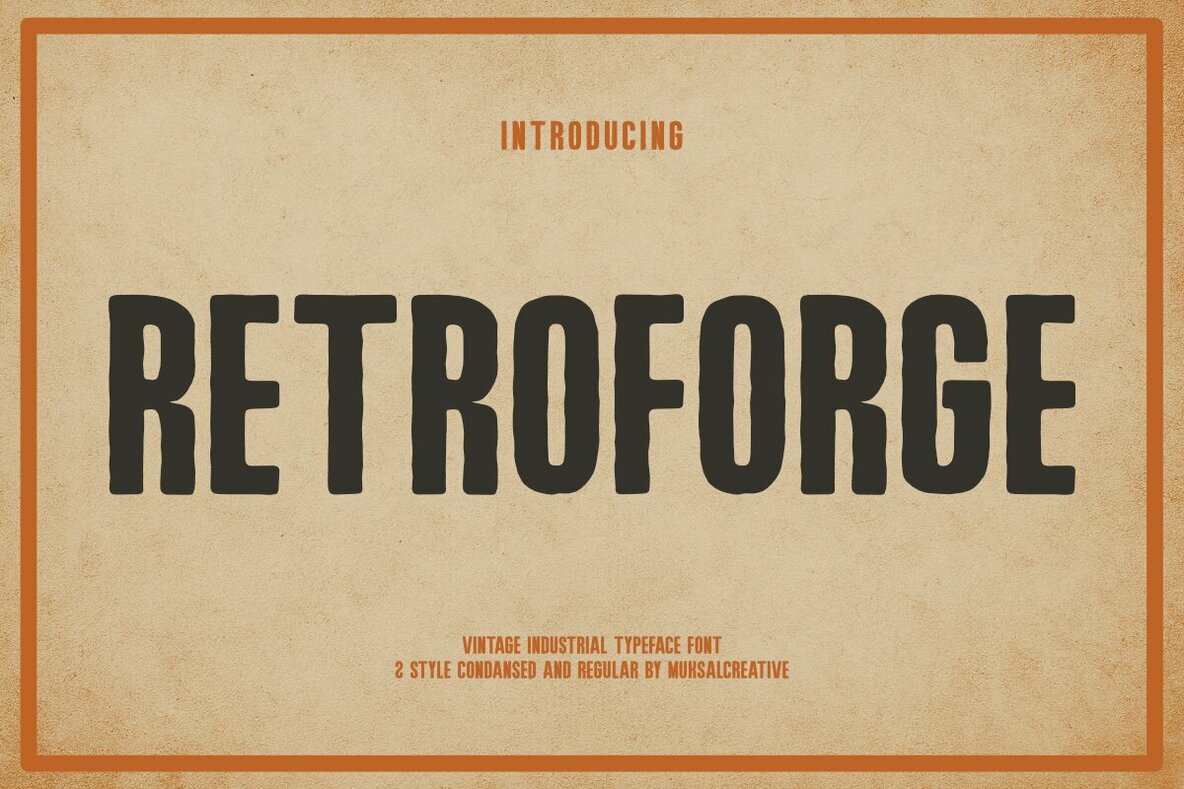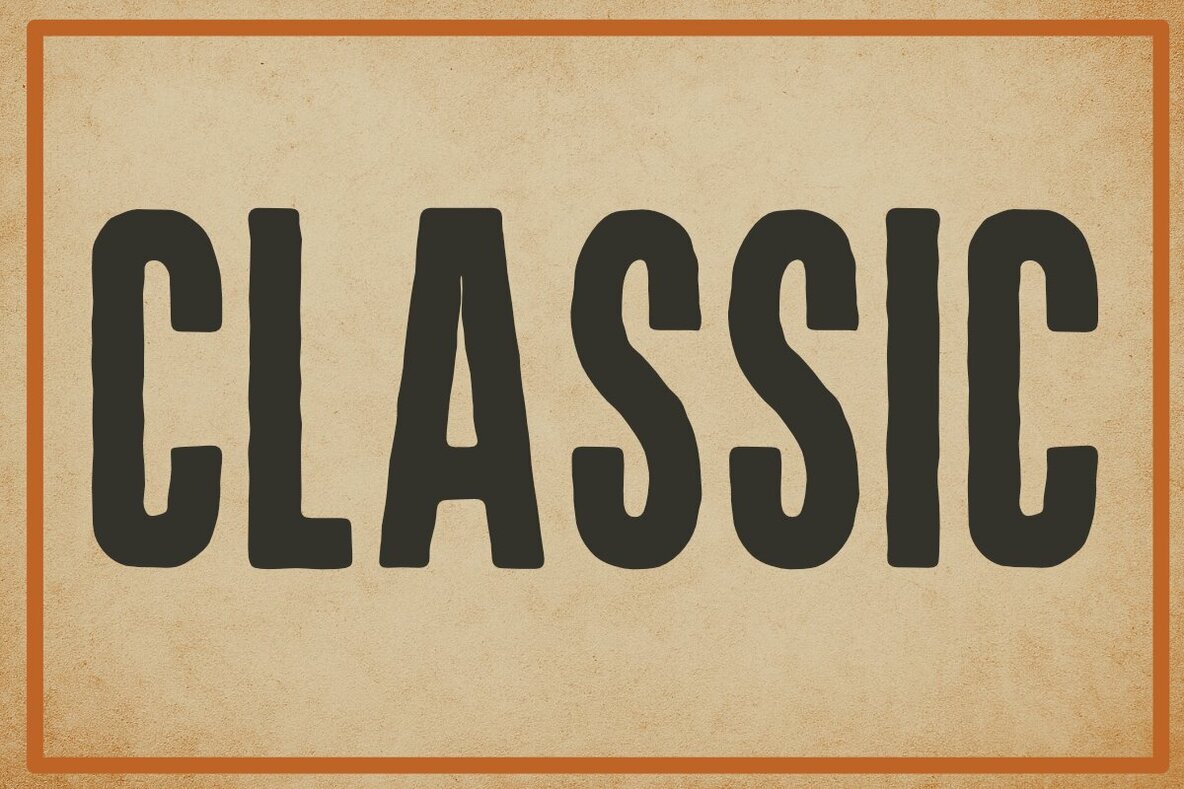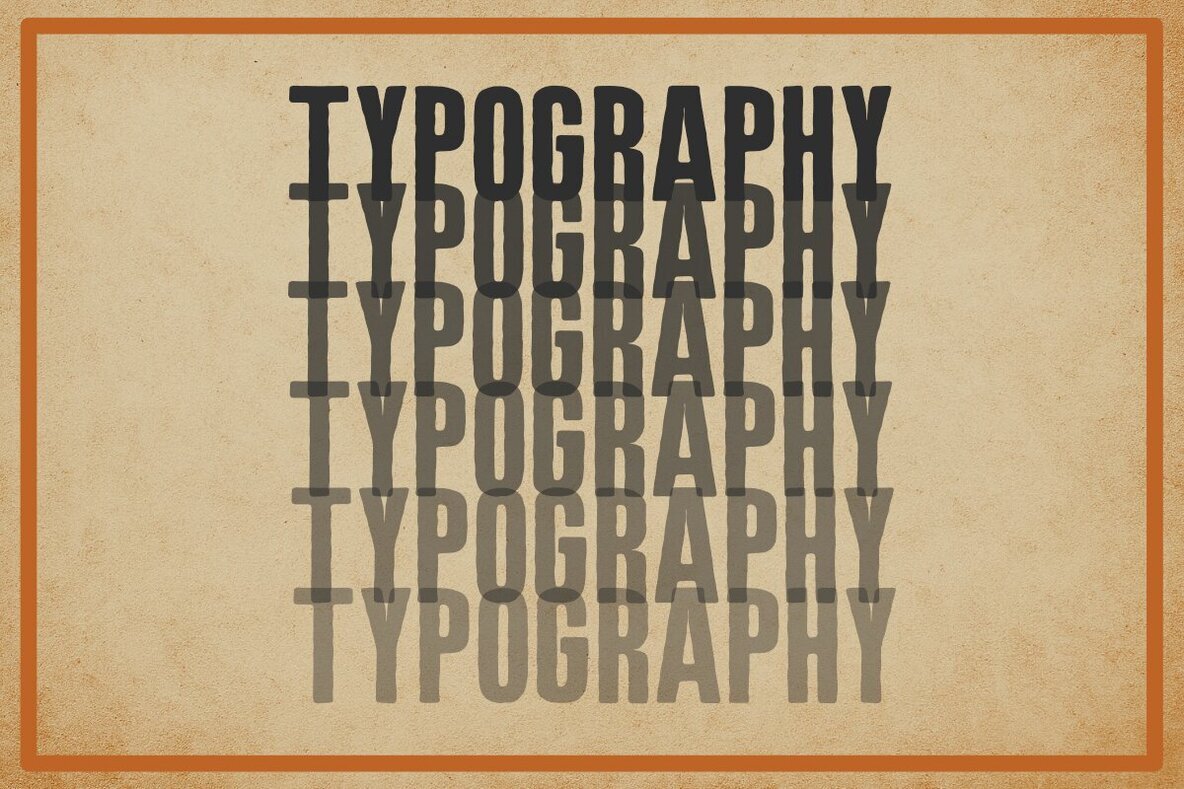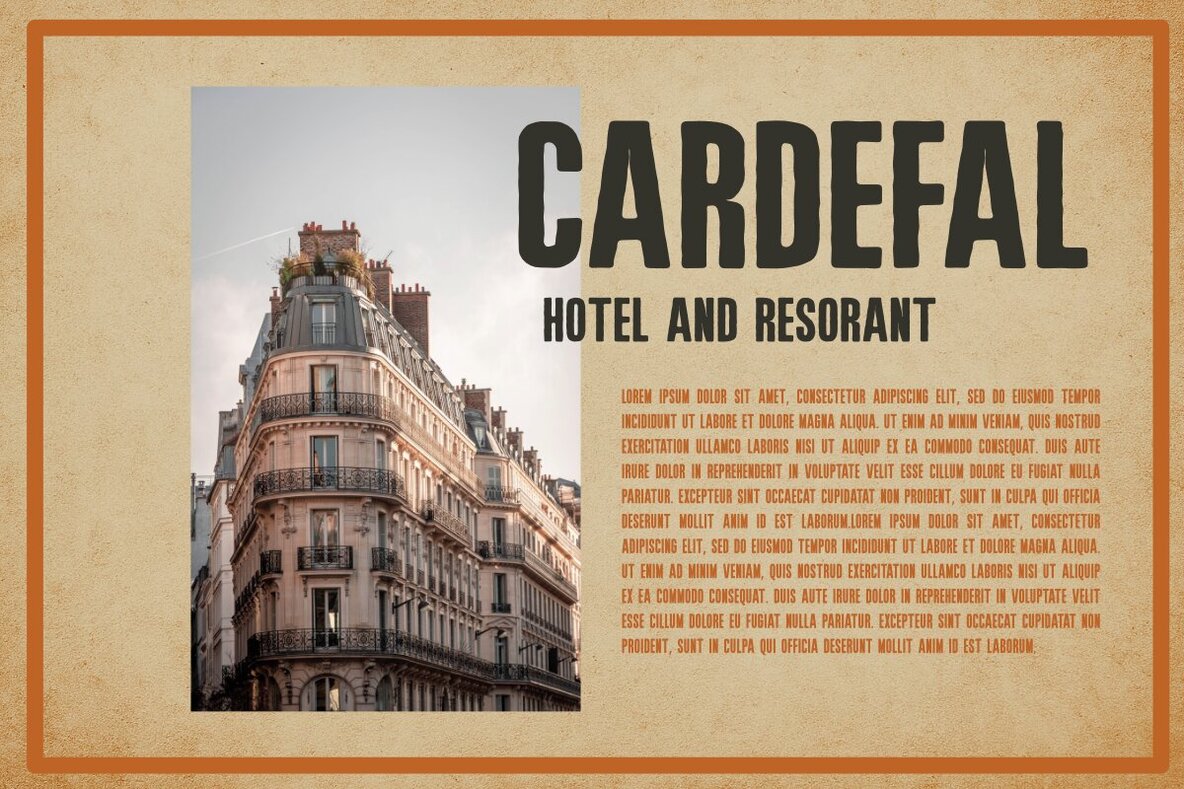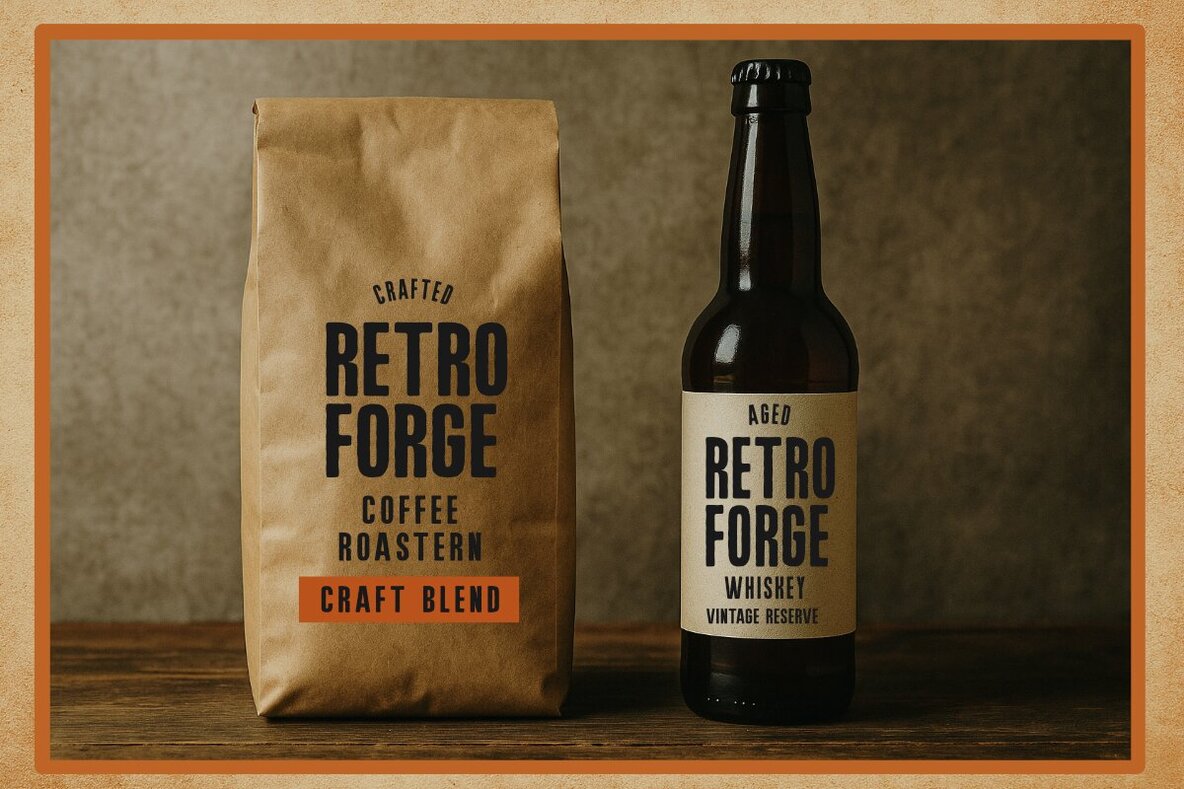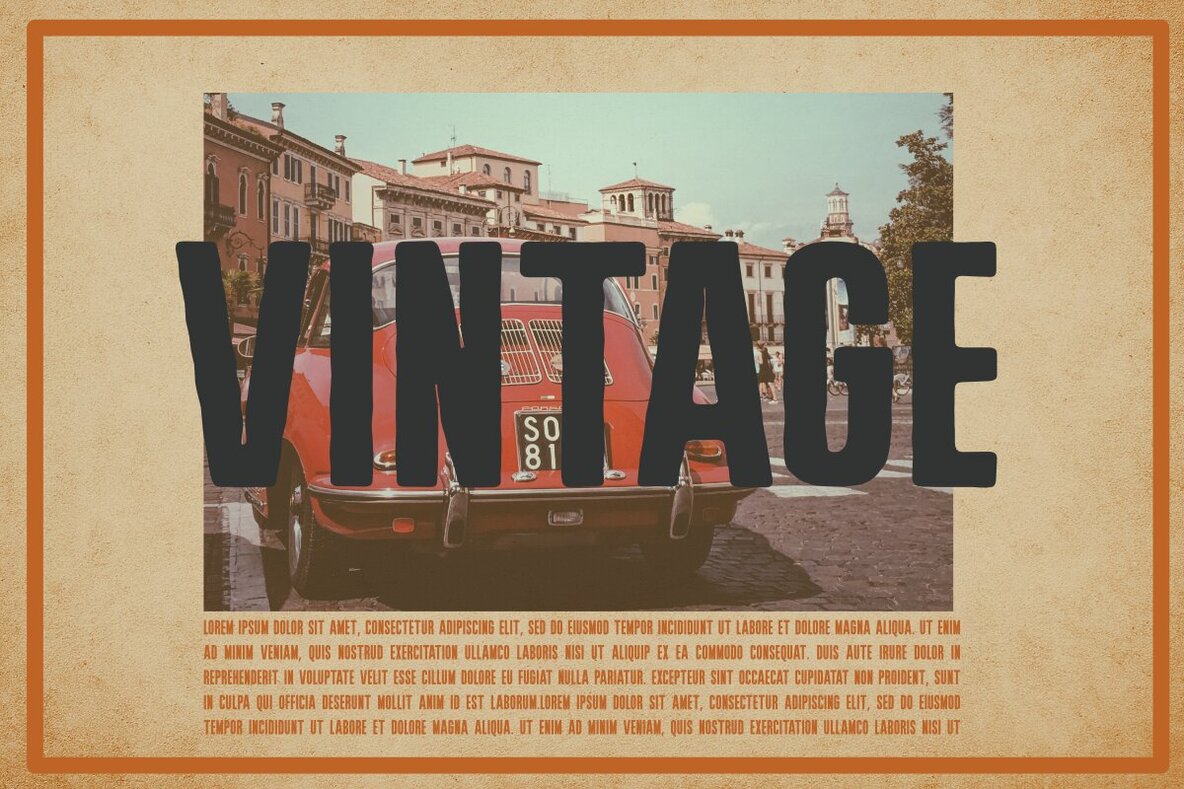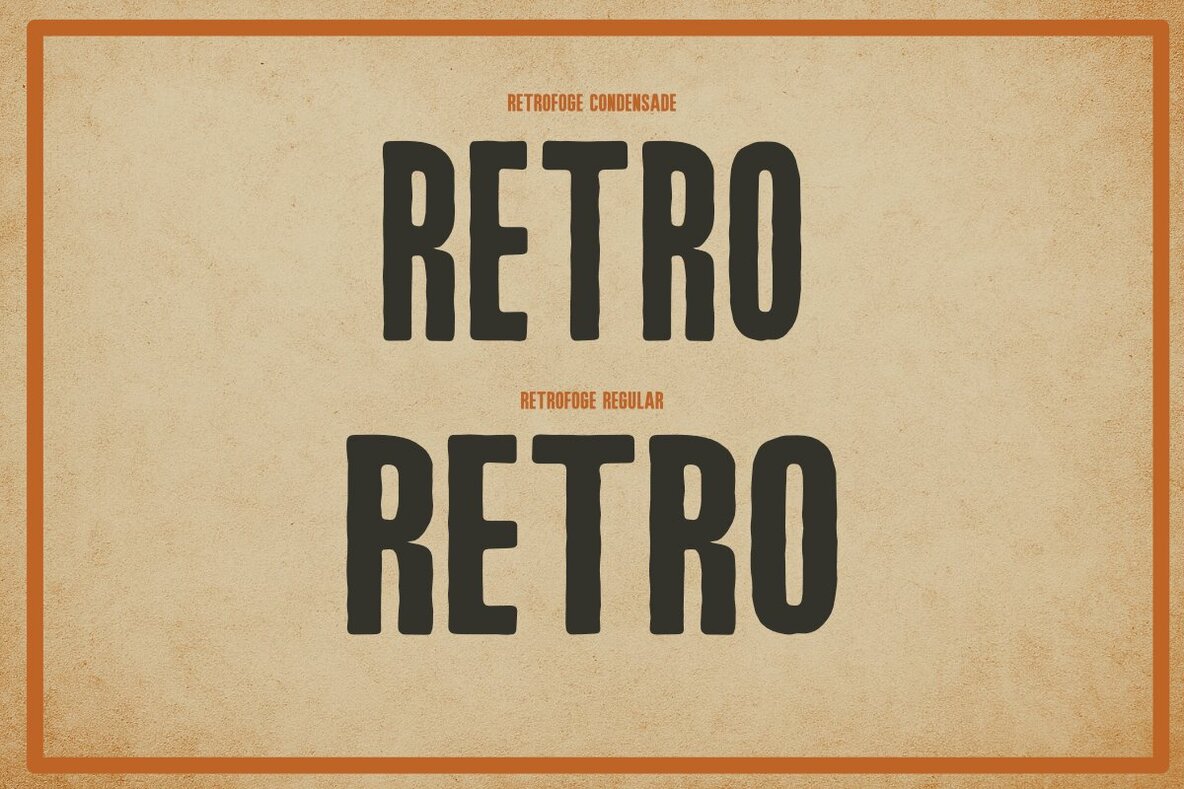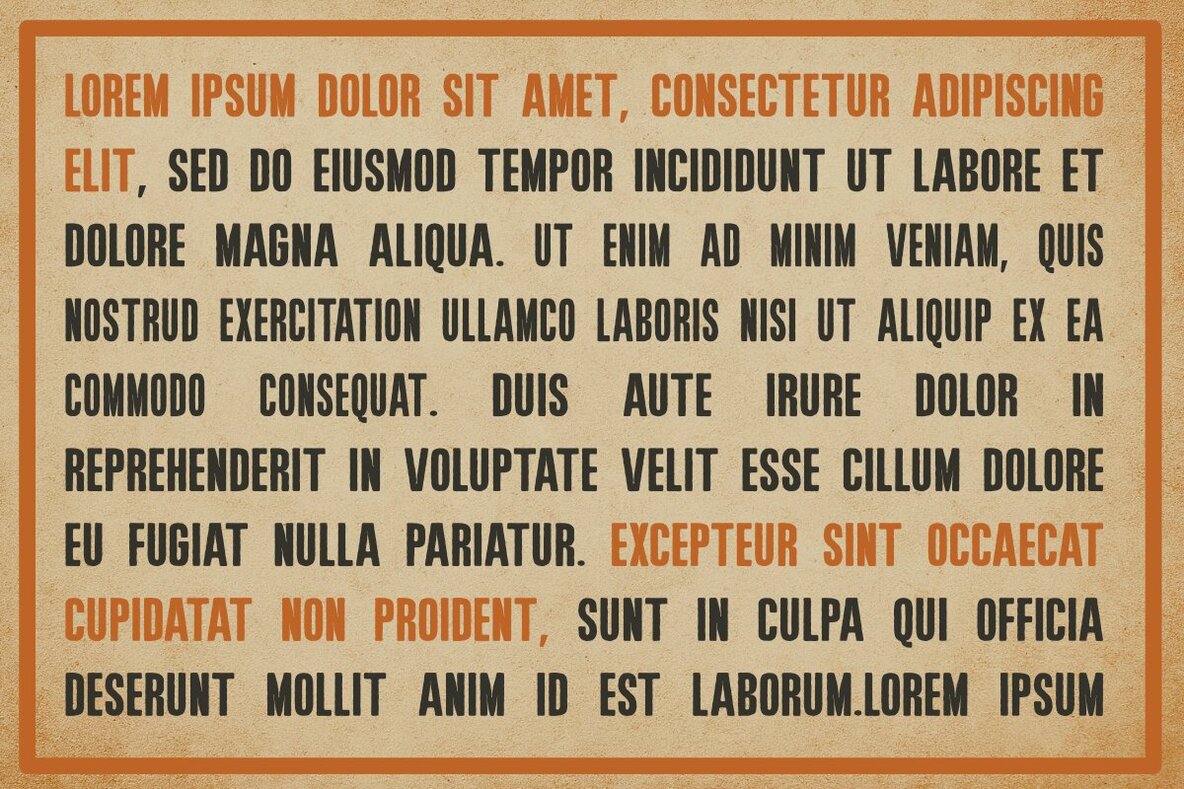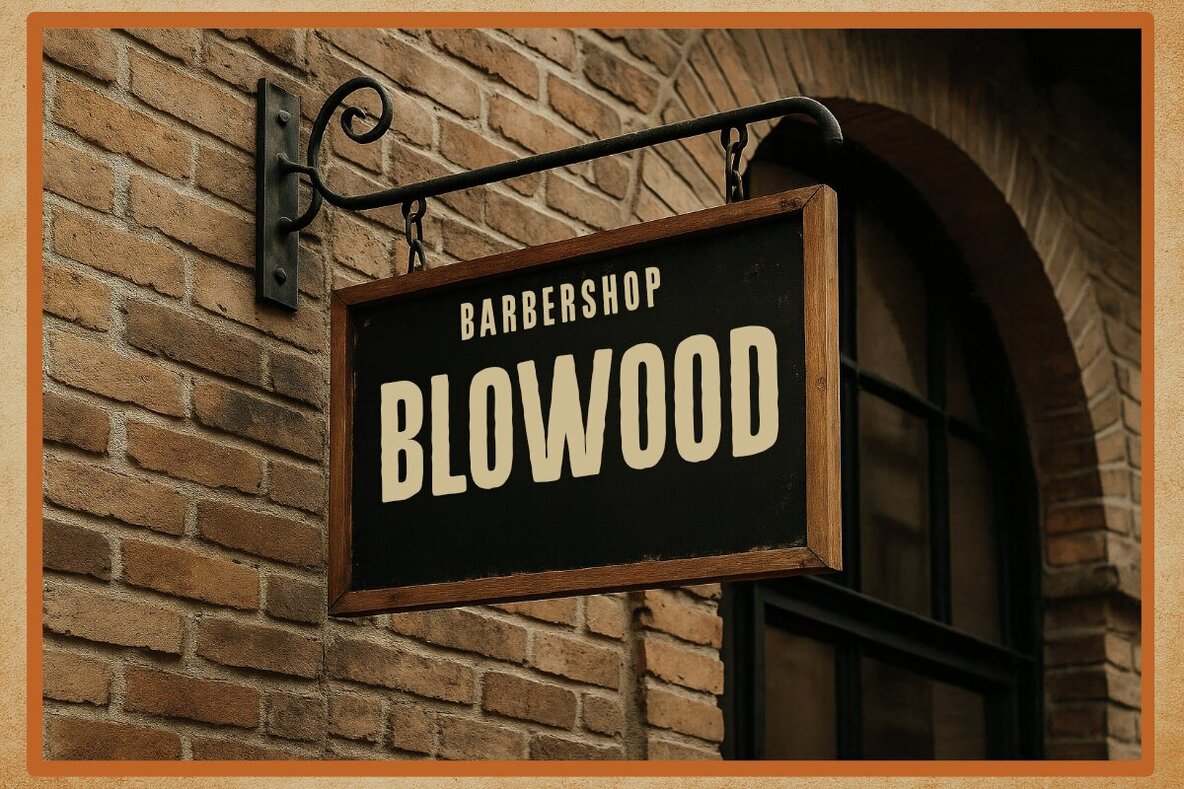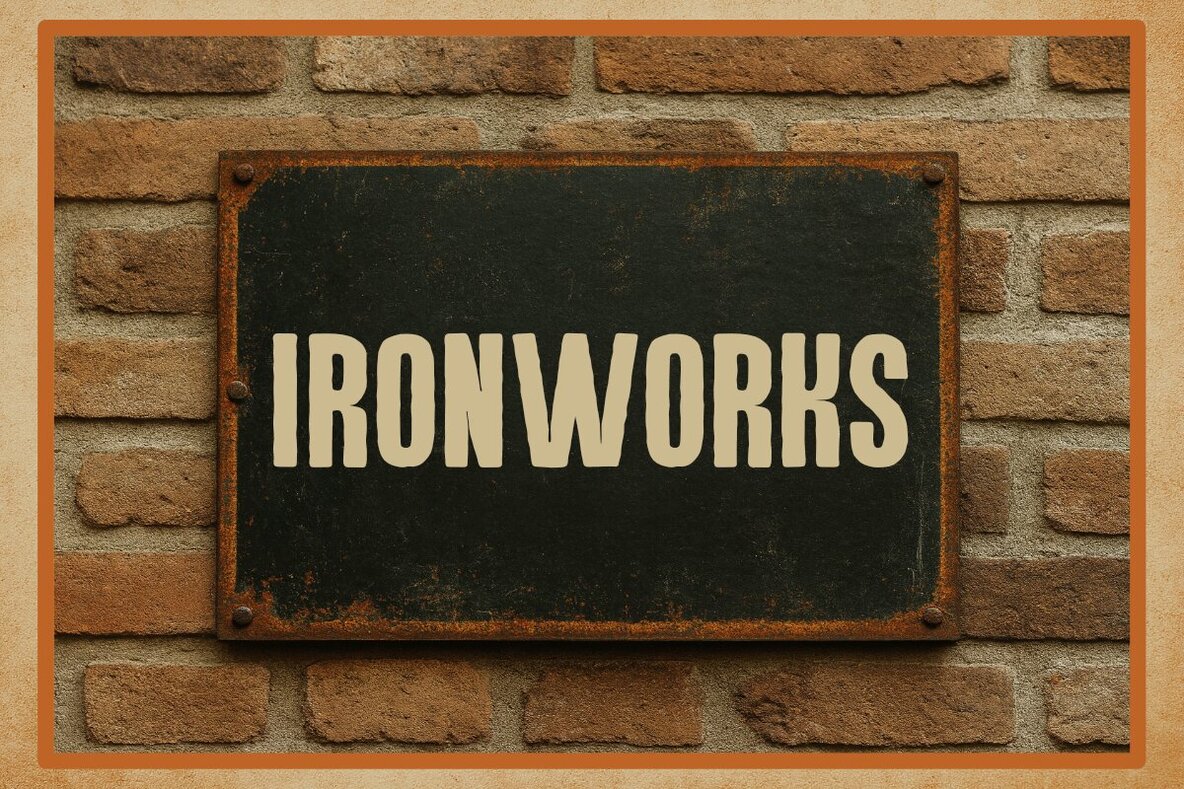
Retroforge Font
Retroforge Regular
Retroforge Condensed
Discover the unique charm of Retroforge, a textured sans serif typeface that marries vintage allure with a modern industrial touch. Its bold, robust letterforms and handcrafted textured finish infuse any design with a timeless, authentic, and dynamic character. Ideal for various applications such as branding, packaging, product labels, signage, and retro posters, Retroforge offers a nostalgic yet contemporary feel. Whether you're crafting designs for cafés, apparel, or barbershops, this typeface ensures a strong vintage look.Retroforge Typeface